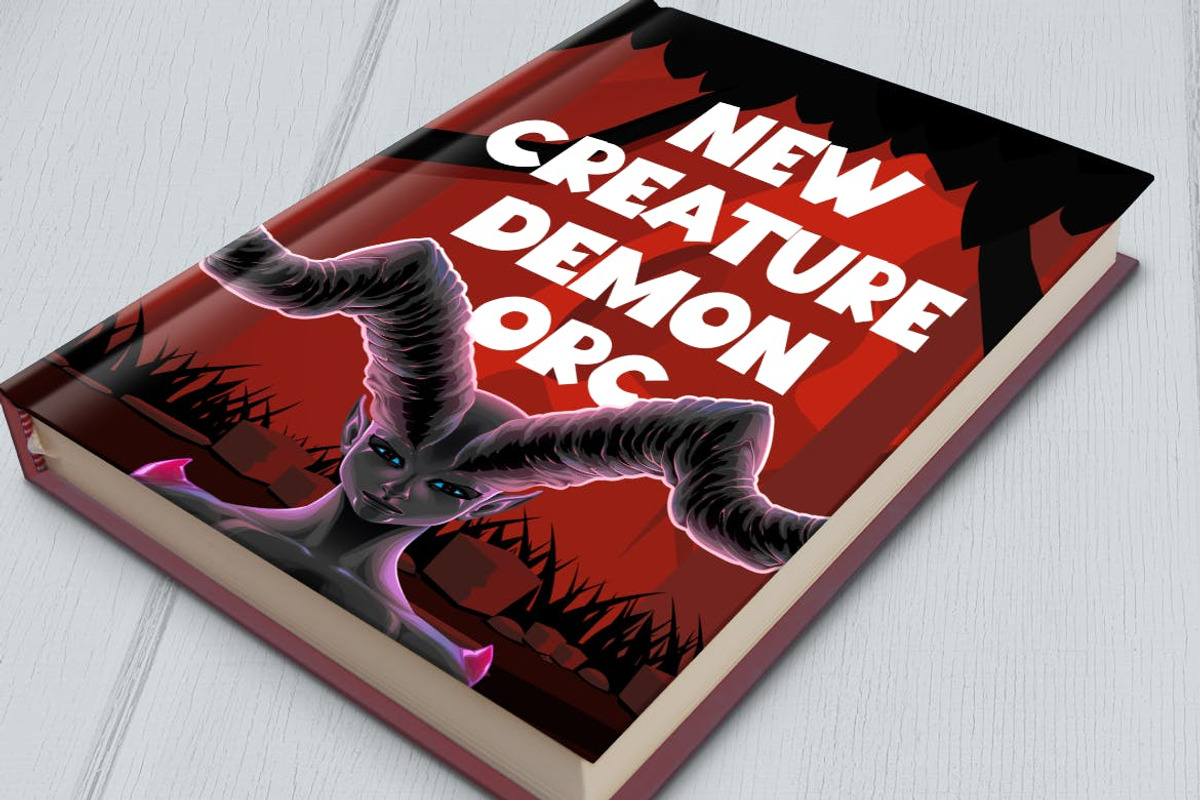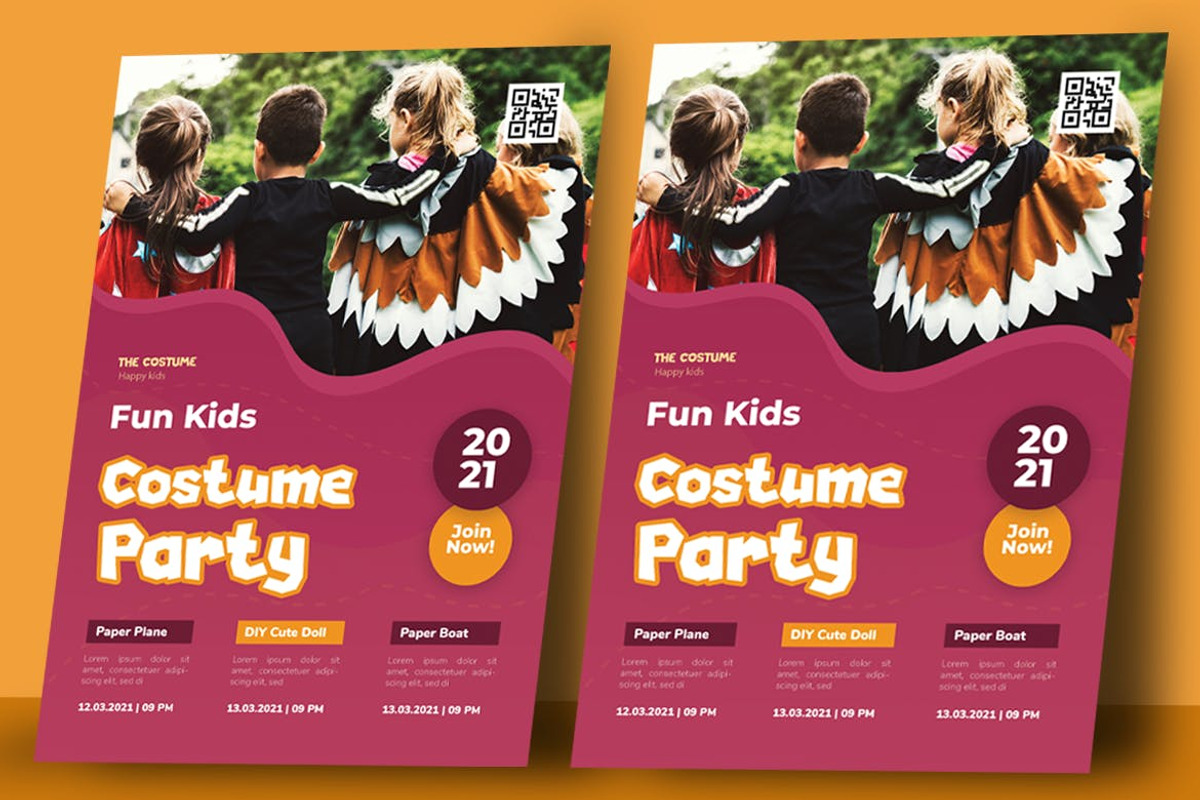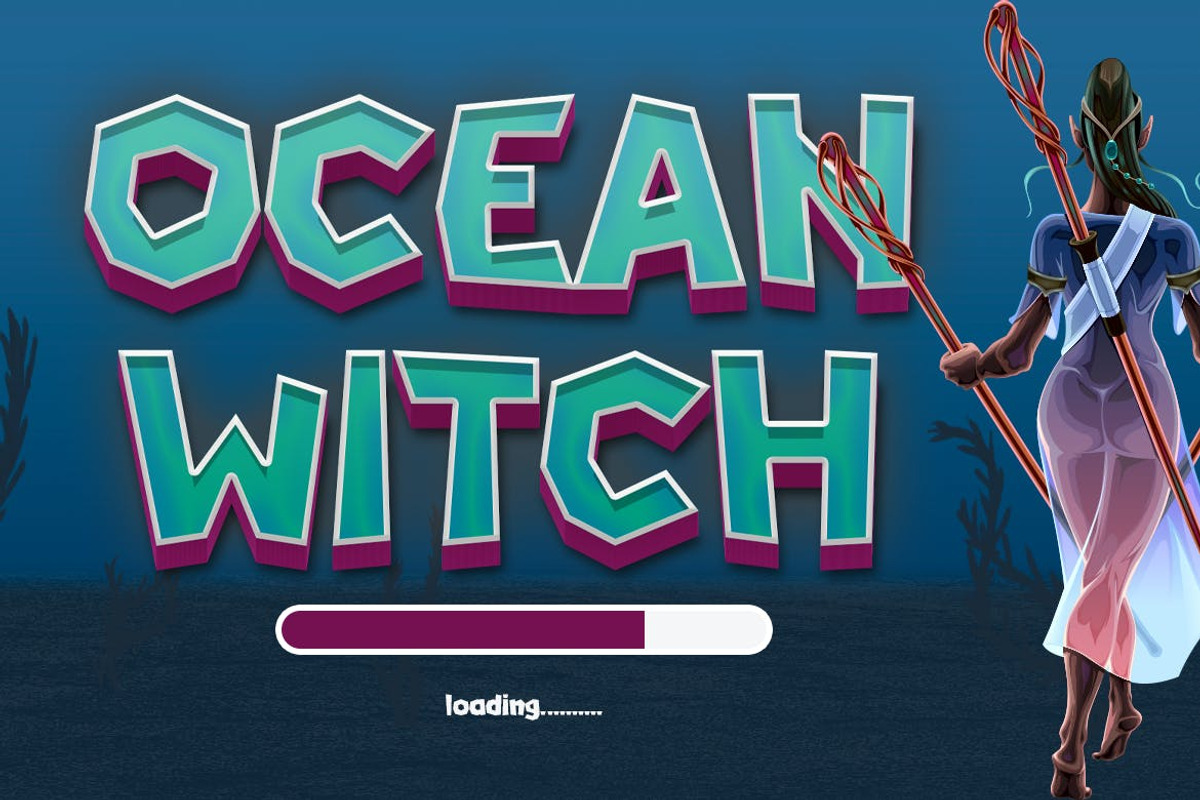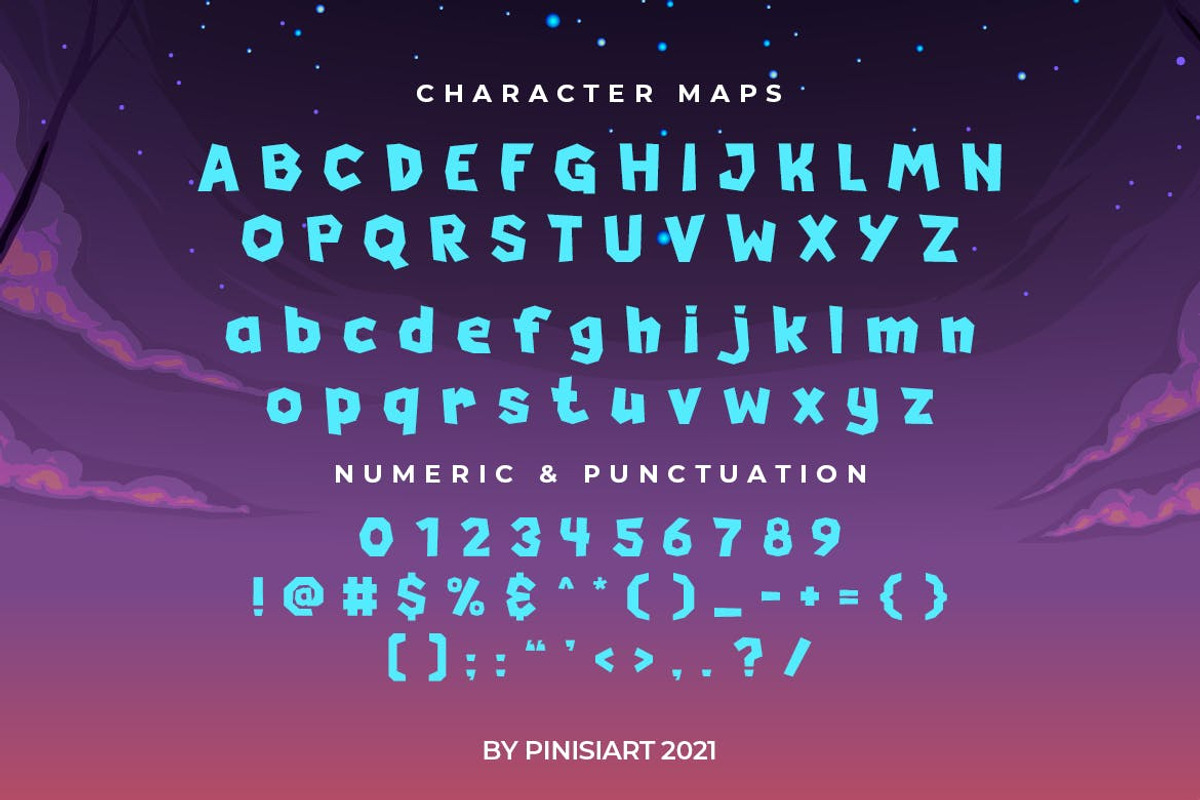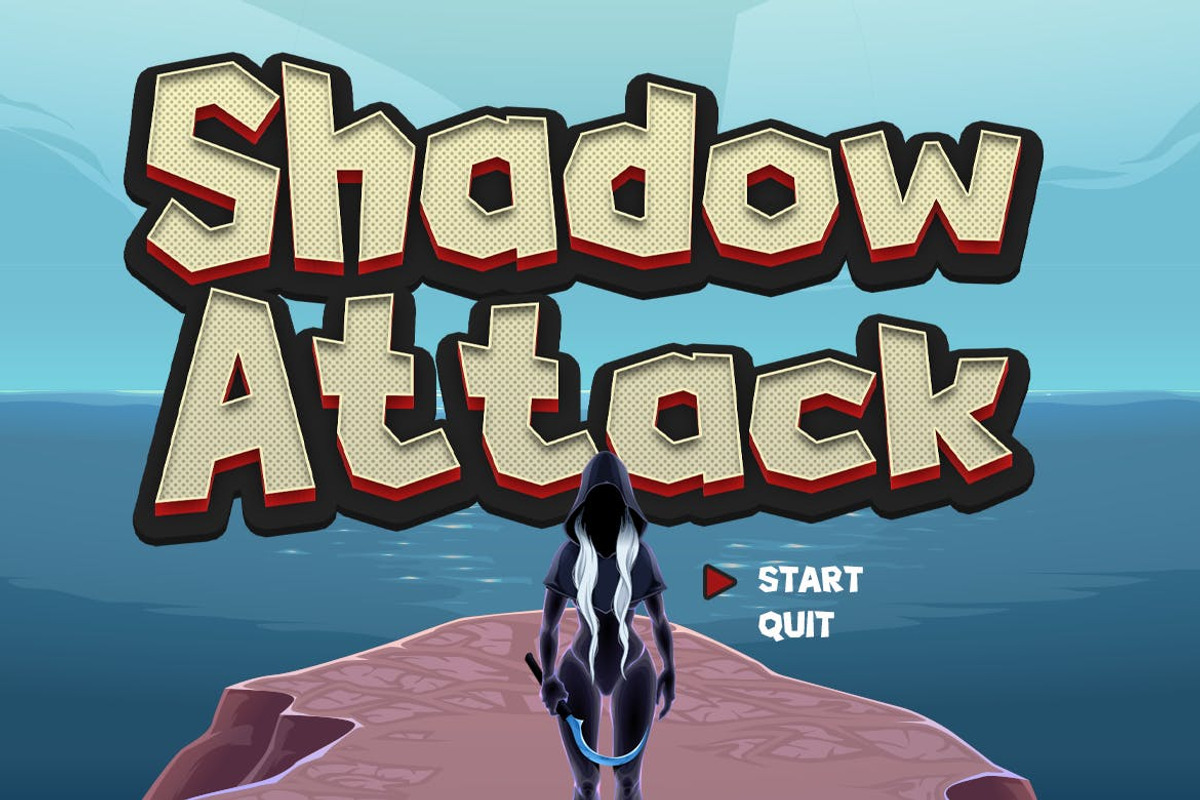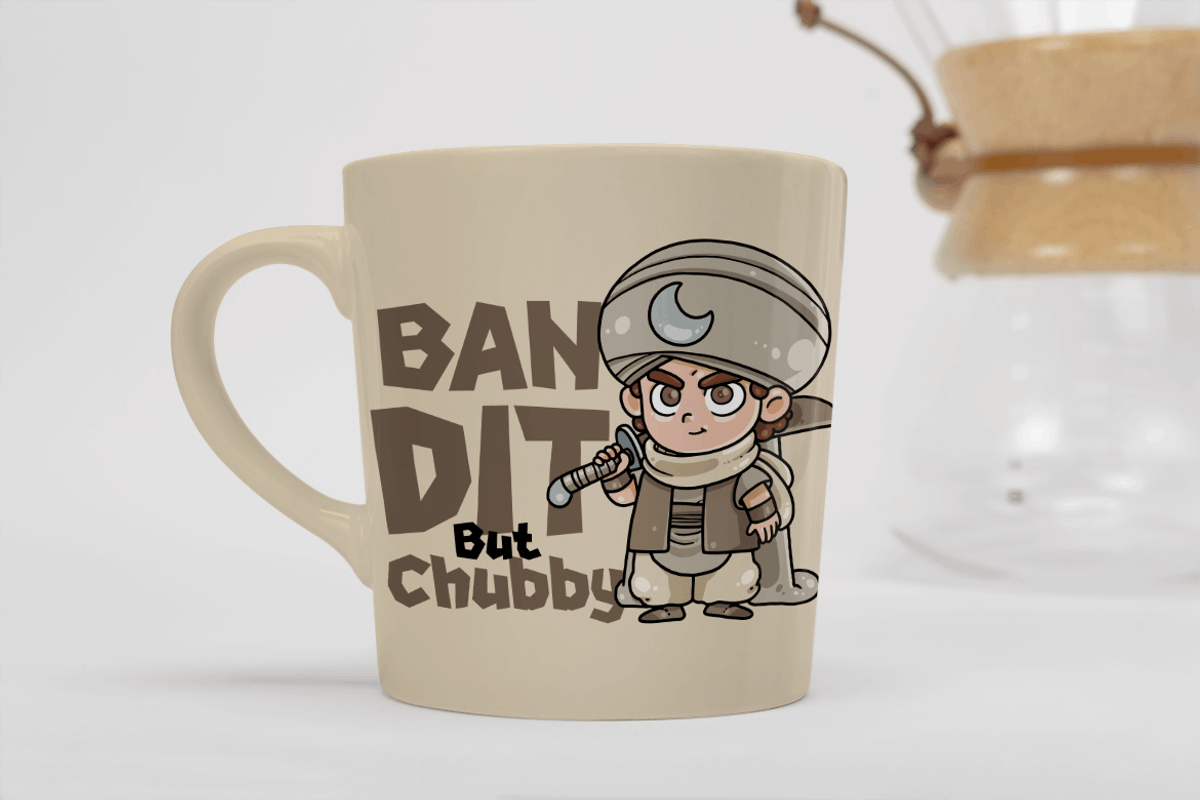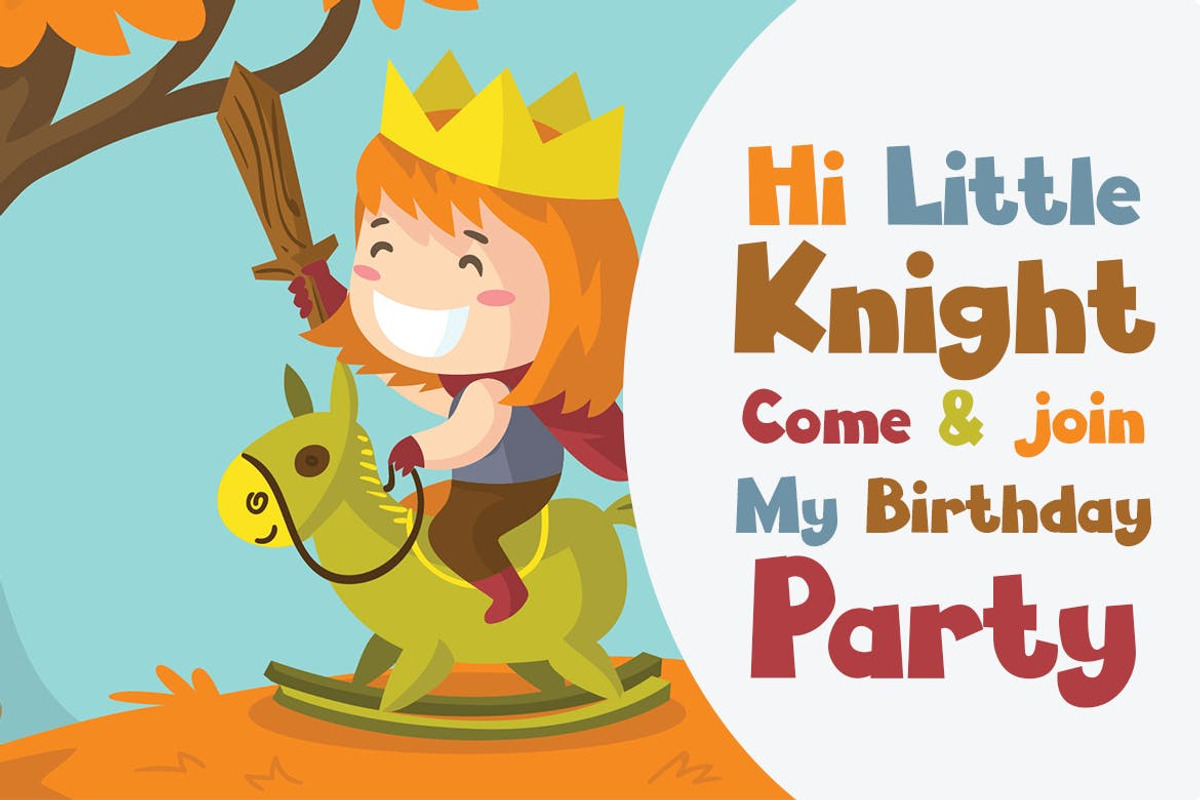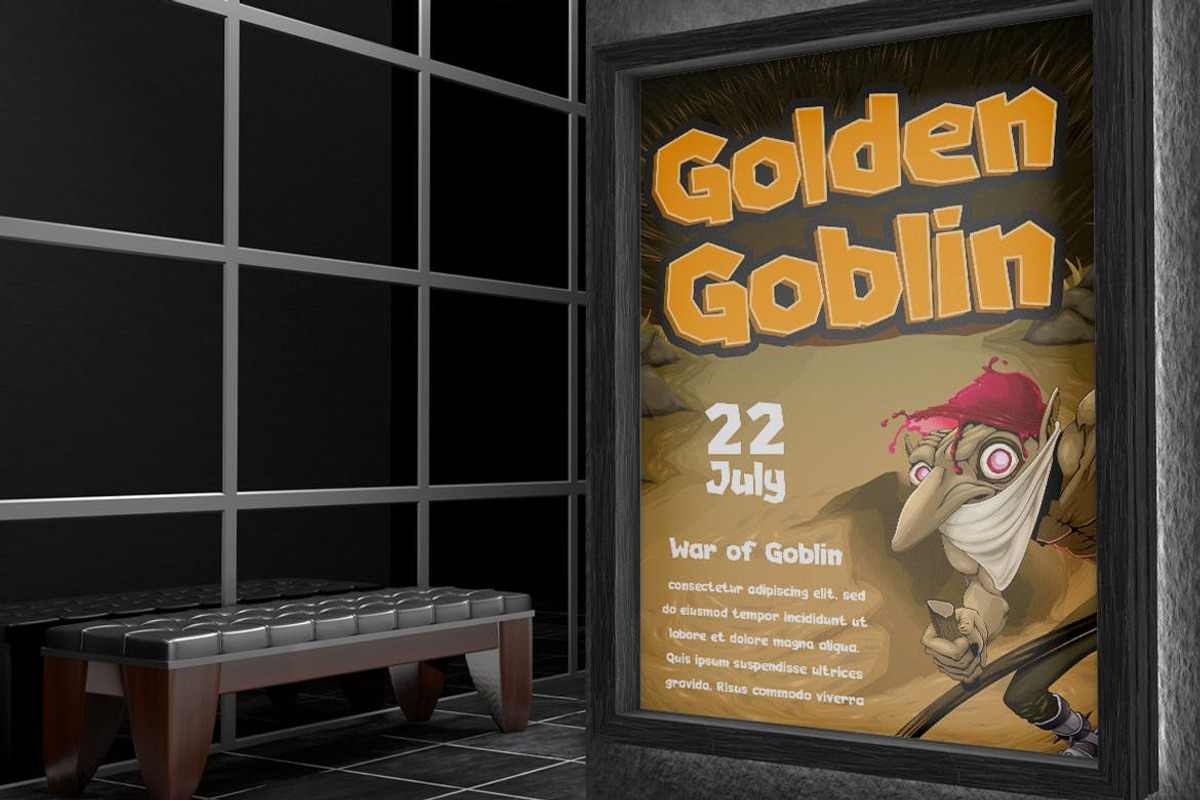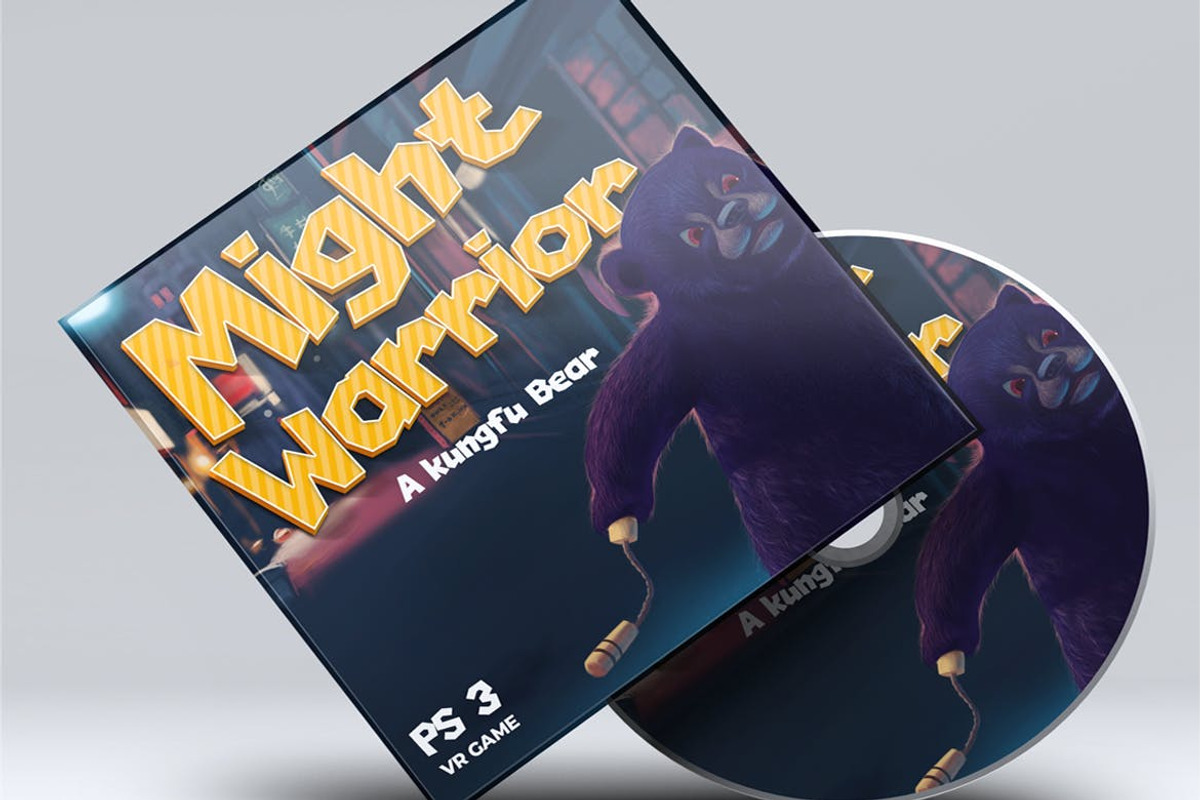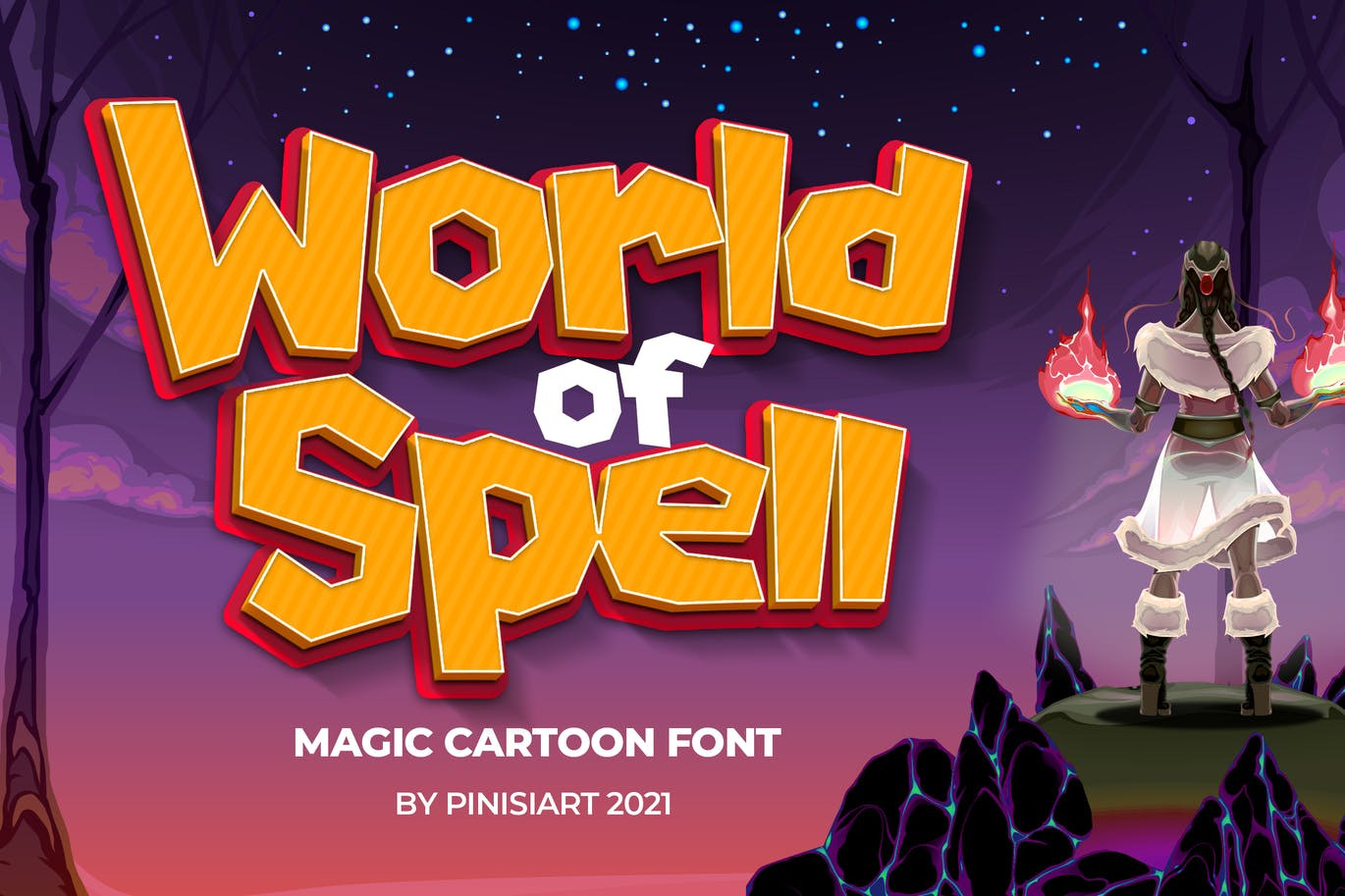
World of Spell – Cartoon Font
It is full of magic, the world of imagination and creation where children are the group that stands at the top.
Suit perfectly for kid's books market, online games, stationary, school supplies font, poster, movie title, youtube covers, youtube thumbnails, social media page covers, and so on…